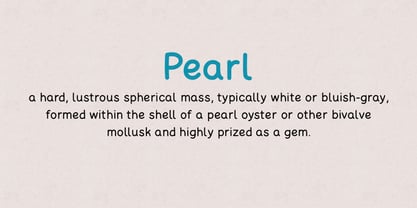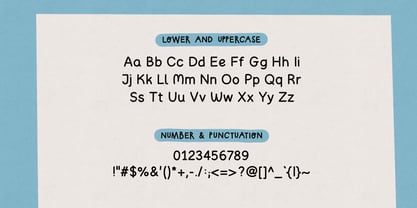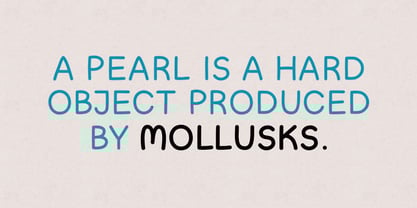
Pearl
by Edyta Demurat
The Pearl Font Family was designed by Edyta Demurat and published by Edyta Demurat. Pearl contains 3 styles and family package options. More about this family
Pearl is a handwritten, legible and universal font available in three varieties - light, regular and bold.
Designers: Edyta Demurat
Foundry: Edyta Demurat